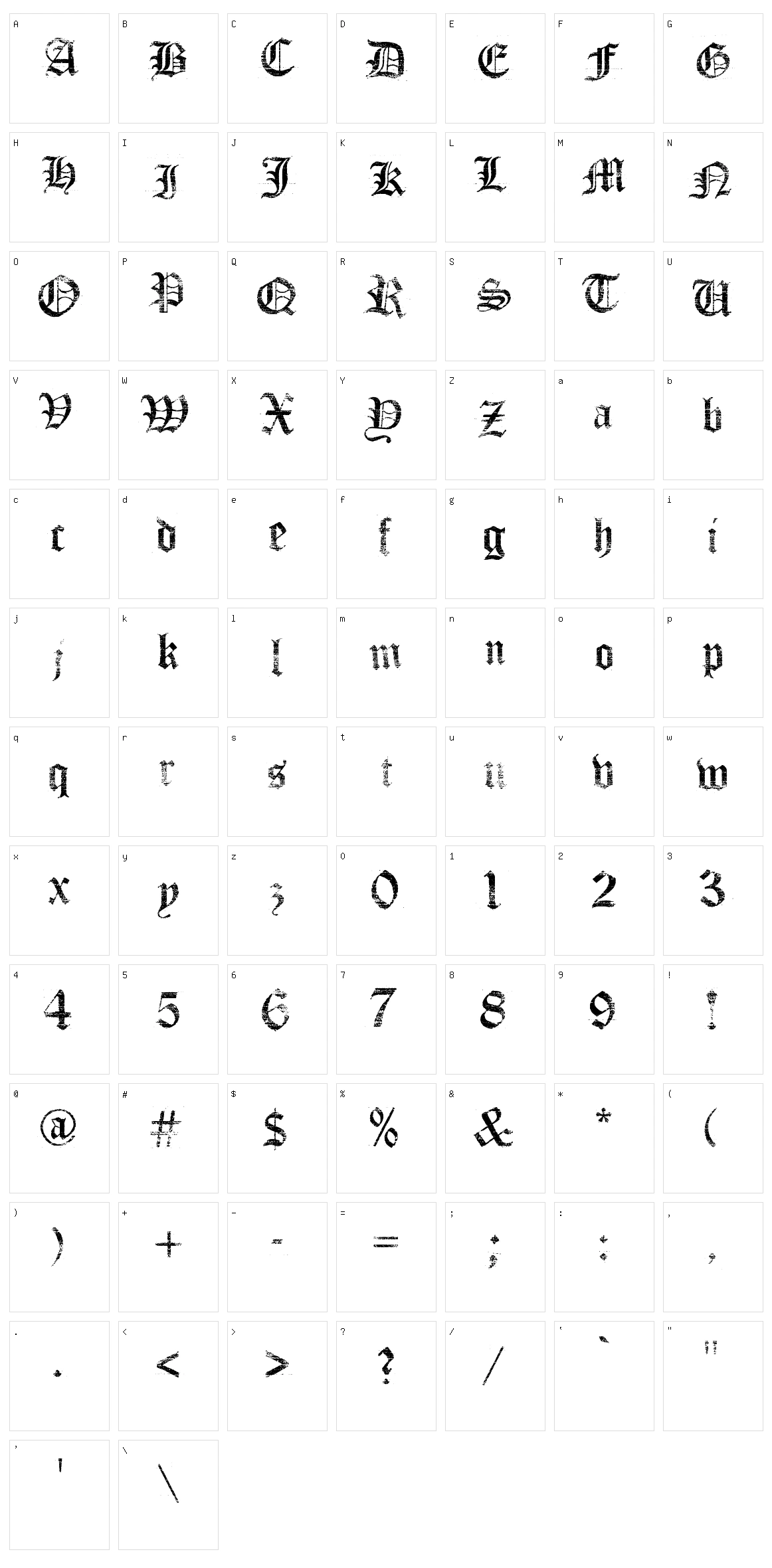
Faith Collapsing
Designed by: nihilschiz
Category: Medieval & Gothic
Faith Collapsing v1.0
This one's kinda a cross between one of those disfunctional messy
old typewriter fonts, and one of those old English blackletter gothic
type thingy fonts. The little "not defined" thing is from the cover